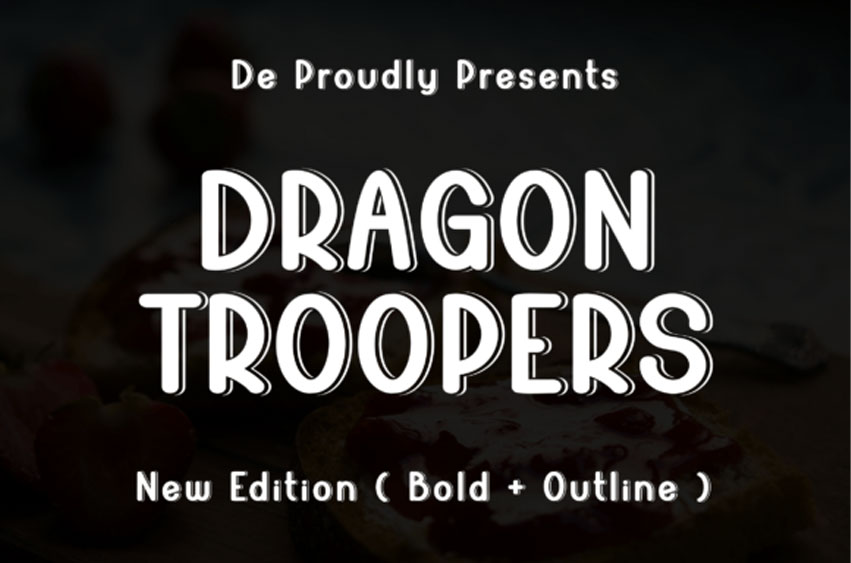
Dragon Troopers Font
Dragon Troopers Font is a modern sans-serif font designed for the new generation of creatives. With its sharp edges and clean lines, this font captures the spirit of innovation and creativity.
Perfect for branding, web design, and print materials, NeueEdge is sure to make your projects stand out from the crowd.